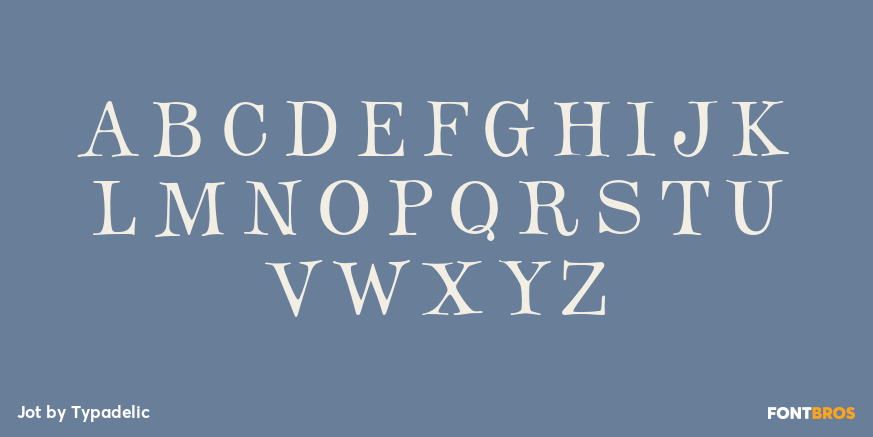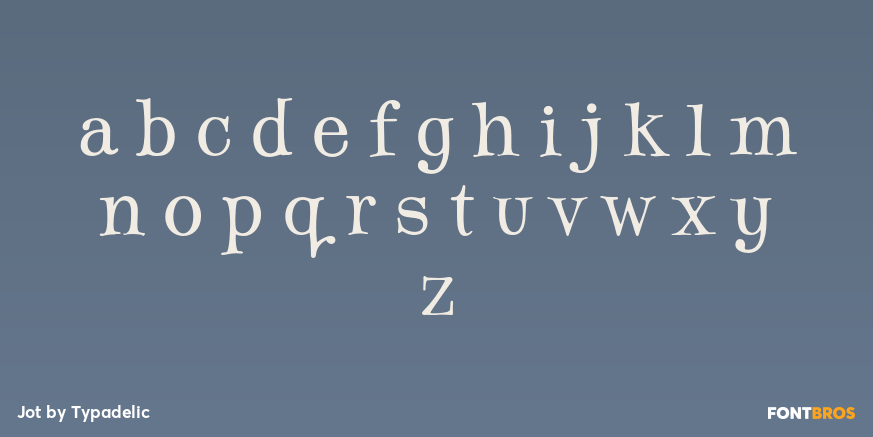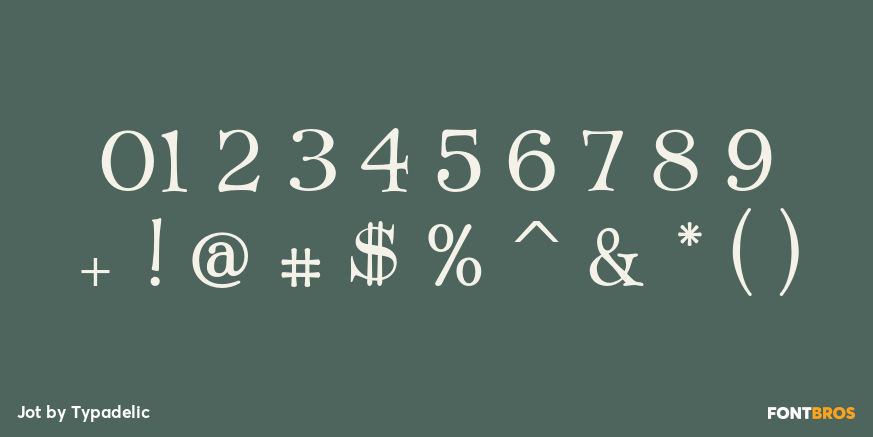
Jot
Font Family by Typadelic
Jot is a playful slab-serif font. This typeface is versatile enough to be used in any type of design work, be it serious or fun.